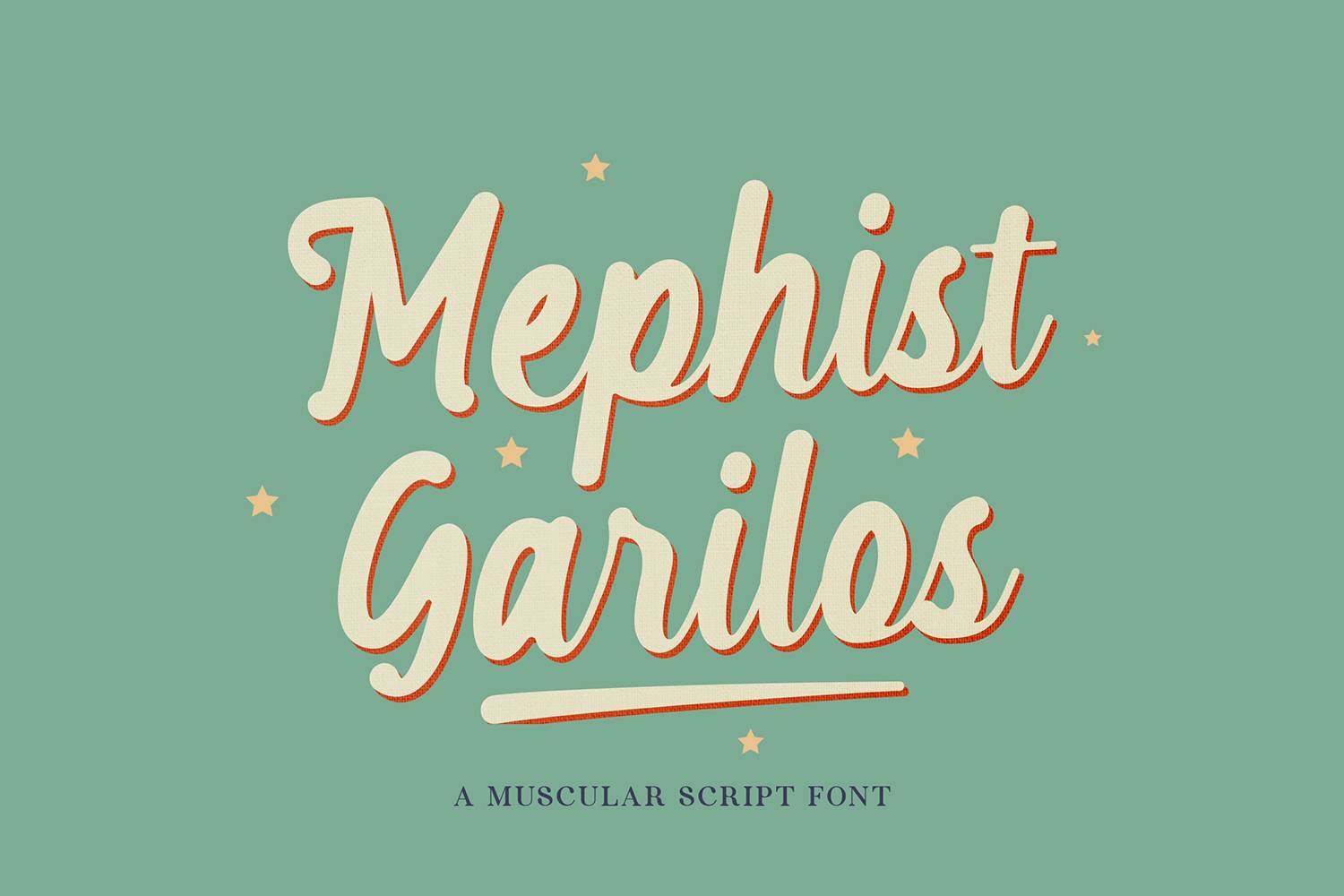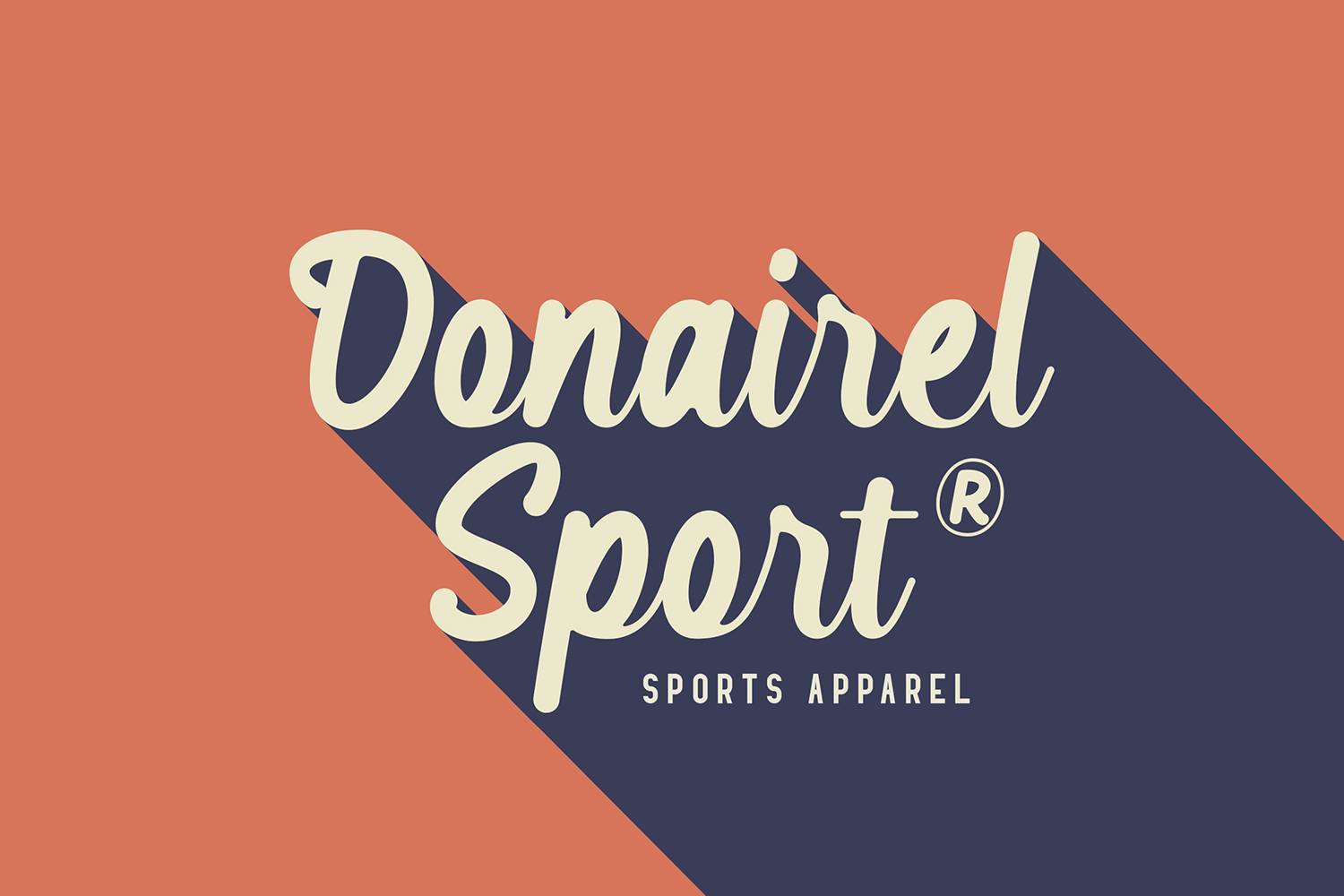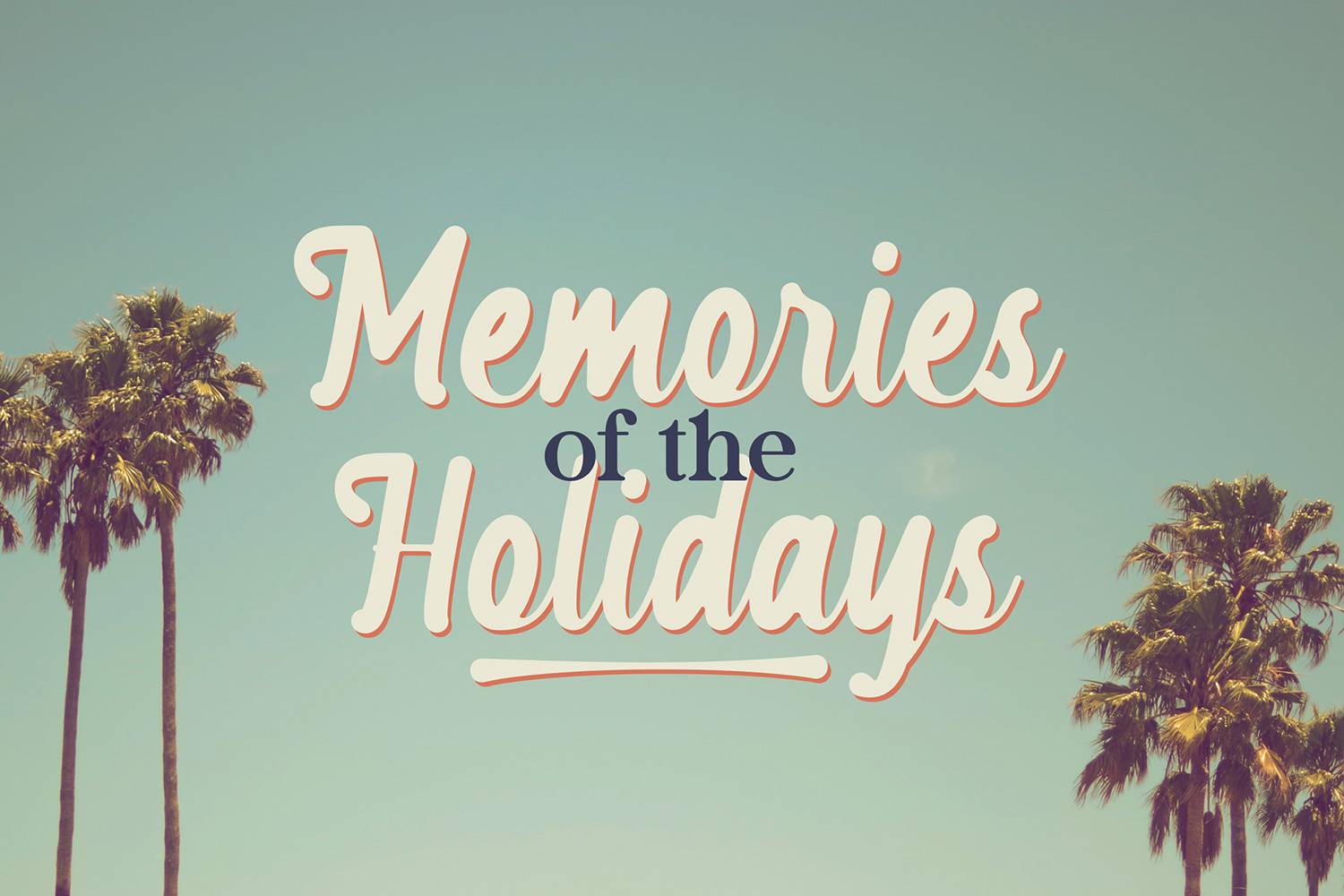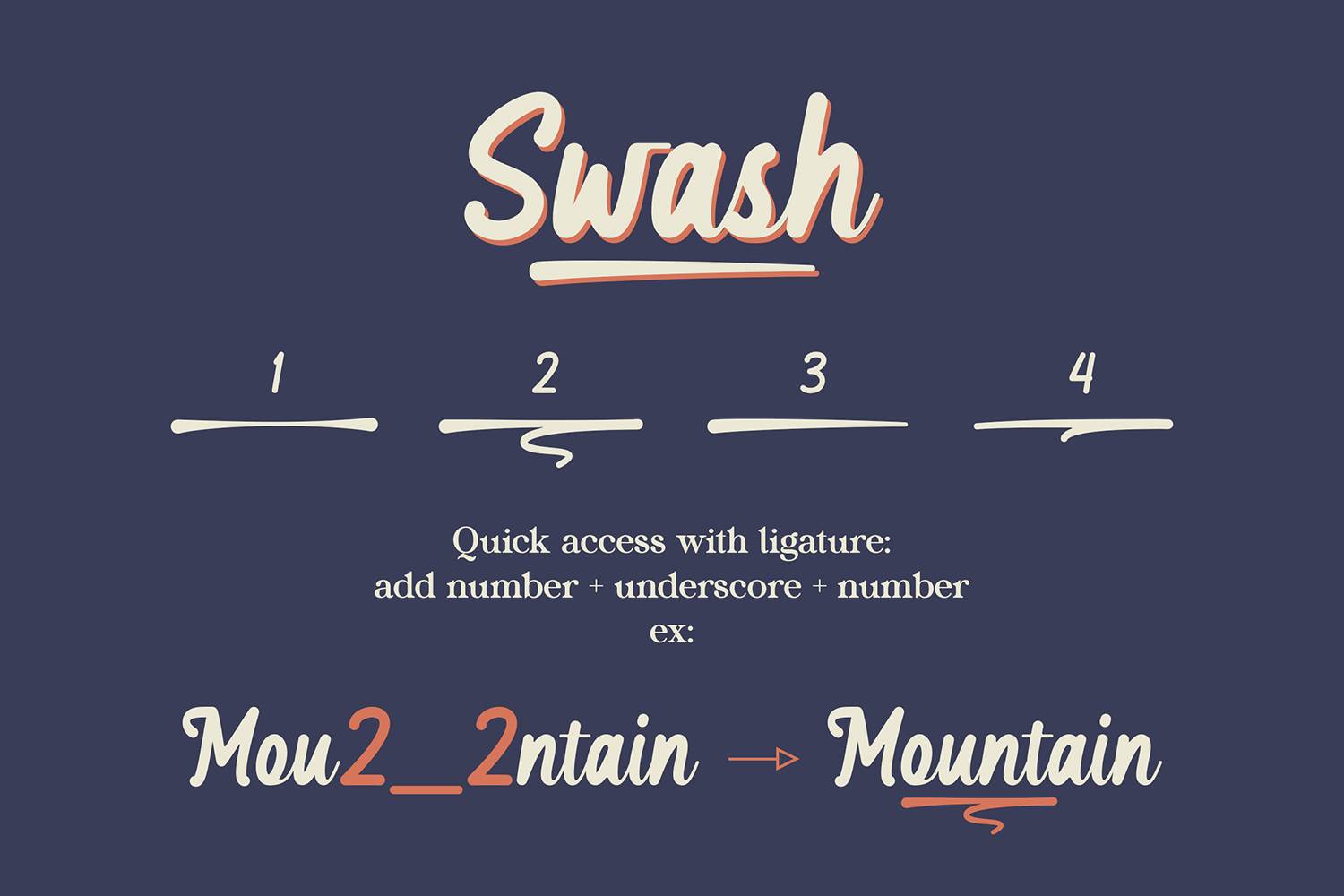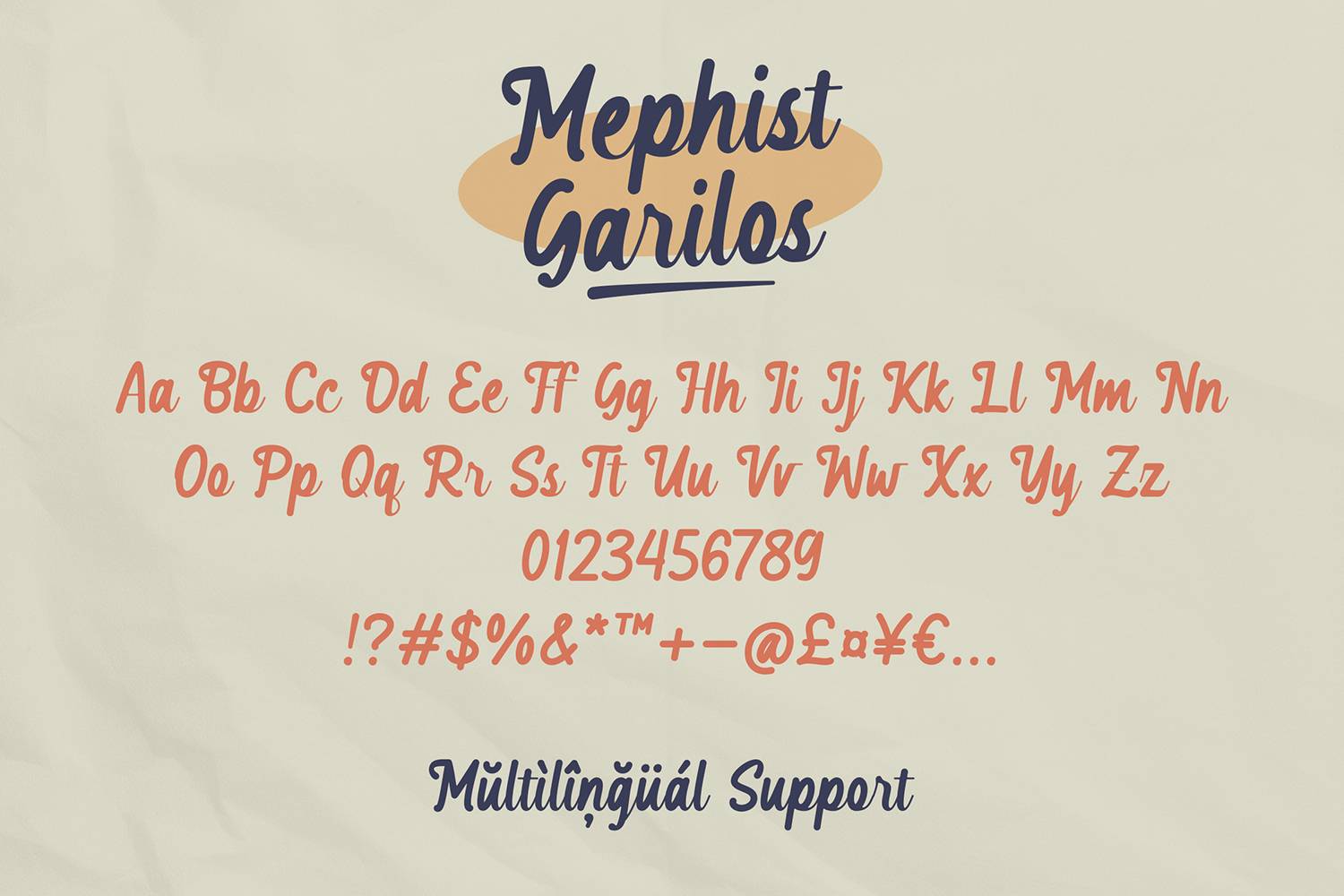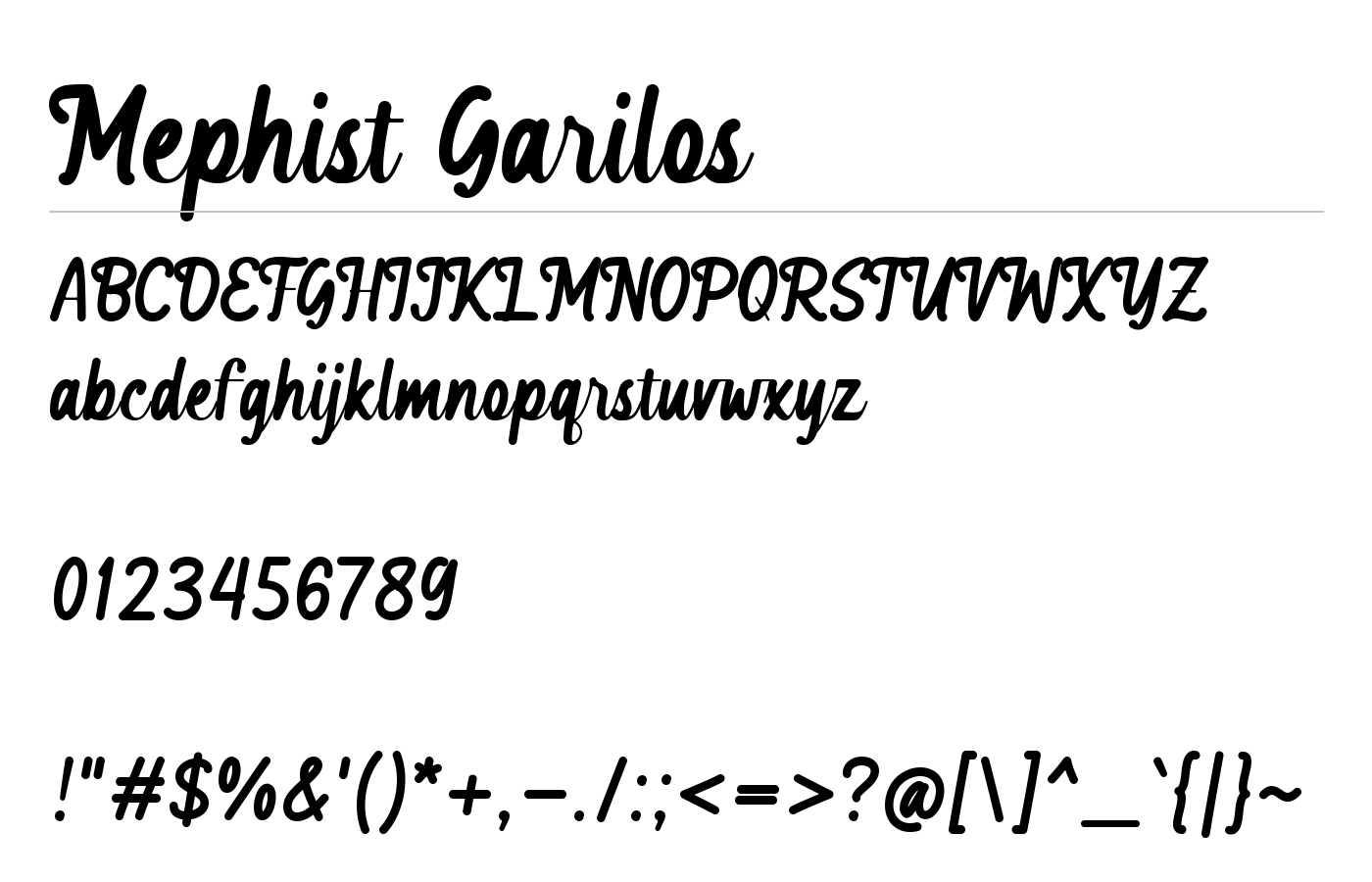
Mephist Garilos is a lively script font with a bold, brush-like feel that blends casual charm with readability. Its smooth, slightly condensed letterforms and consistent stroke weight make it ideal for adding a friendly, energetic personality to branding, packaging, and headlines. This font works well where a warm, approachable touch is needed without sacrificing clarity.
Mephist Garilos Font
About Mephist Garilos Font